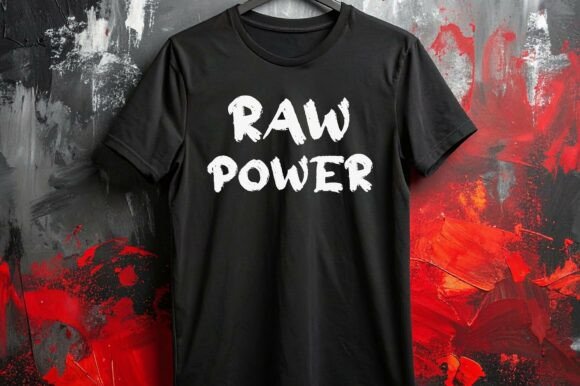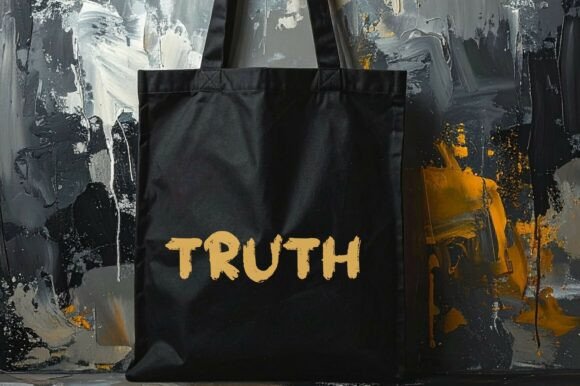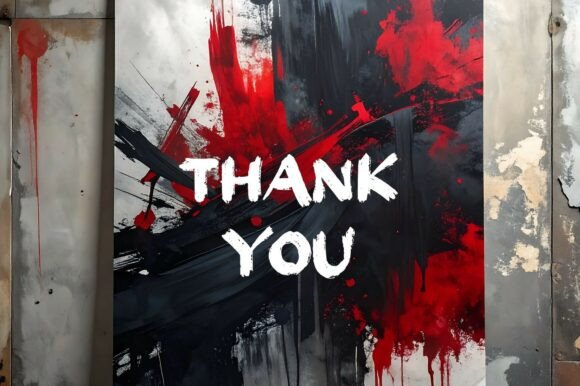
Unleash Your Design’s Wild Side with Ape Mount Font
In the world of typography, few fonts manage to capture the essence of raw power, intensity, and rebellion as effectively as Ape Mount. This bold, rugged display typeface is specifically designed to convey a distressed, primal aesthetic that commands attention and exudes an unpolished, formidable image. Whether you’re a designer looking to create a brand identity for a heavy metal band, an extreme sports gear company, or a survivalist-themed project, Ape Mount is the perfect choice.
The Raw, Distressed Aesthetic of Ape Mount
Ape Mount’s design is characterized by its bold, hand-painted or brush-stroked letterforms that appear weathered, textured, and slightly uneven. The characters often have jagged edges, giving the font an aggressive energy that’s hard to ignore. This unique texture and appearance make Ape Mount stand out from other fonts, allowing it to communicate strength, defiance, and a wild spirit like no other.
Perfect for Rebellious and High-Energy Projects
Ape Mount is exceptionally well-suited for projects that require a strong, untamed, and rebellious feel. Its raw, distressed aesthetic makes it an ideal choice for:
- Heavy Metal Bands: Ape Mount’s aggressive, in-your-face attitude is perfect for heavy metal band branding, album covers, and merchandise.
- Extreme Sports Gear: For companies that specialize in extreme sports equipment, Ape Mount’s bold, rugged design conveys a sense of adventure, risk-taking, and high-energy action.
- Survivalist Themes: Ape Mount’s primal, raw aesthetic is well-suited for projects that celebrate survivalism, outdoor adventure, and a self-sufficient lifestyle.
- Protest Art: The font’s rebellious, defiant attitude makes it a great fit for protest art, activist branding, and social movement campaigns.
What Sets Ape Mount Apart
Ape Mount distinguishes itself from other fonts through its unique texture and ability to communicate strength, defiance, and a wild spirit. The font’s design elements include:
- Visceral Texture: Ape Mount’s hand-painted or brush-stroked letterforms give it a raw, textured appearance that’s unlike any other font.
- Jagged Edges: The font’s jagged edges and uneven character shapes add to its aggressive, high-energy feel.
- Authentic, Gritty Presence: Ape Mount’s distressed aesthetic gives it an authentic, gritty presence that’s perfect for designs that require a raw, unpolished look.
Tips for Using Ape Mount Effectively
To get the most out of Ape Mount, consider the following tips:
- Use it boldly: Ape Mount is designed to make a statement, so don’t be afraid to use it in bold, eye-catching applications.
- Pair it with contrasting fonts: Ape Mount’s bold, distressed aesthetic can be paired effectively with cleaner, more minimalist fonts to create visual interest.
- Experiment with colors: Ape Mount’s texture and appearance can be enhanced or altered by different colors, so don’t be afraid to experiment and find the perfect hue for your design.
Ape Mount is a powerful and rugged display typeface that’s perfect for designers and crafters looking to add a raw, primal aesthetic to their projects. With its bold, hand-painted or brush-stroked letterforms, jagged edges, and authentic, gritty presence, Ape Mount is the ideal choice for projects that require a strong, untamed, and rebellious feel. Whether you’re working on a heavy metal band’s branding, an extreme sports gear company’s logo, or a protest art campaign, Ape Mount is sure to make a lasting impression.